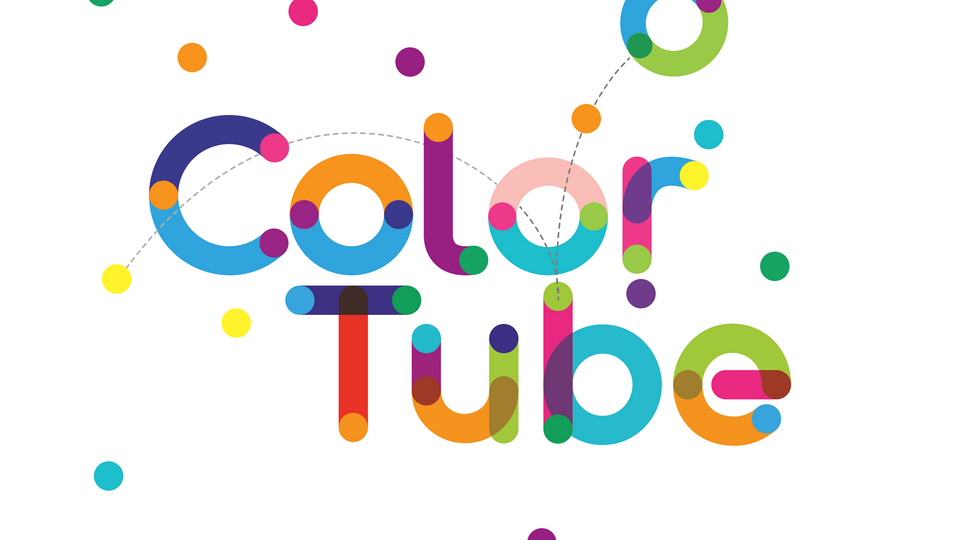
Download Colortube font, a beautiful color font for use with Adobe Illustrator and Photoshop. It supports Basic Latin character set and great for various display purposes.